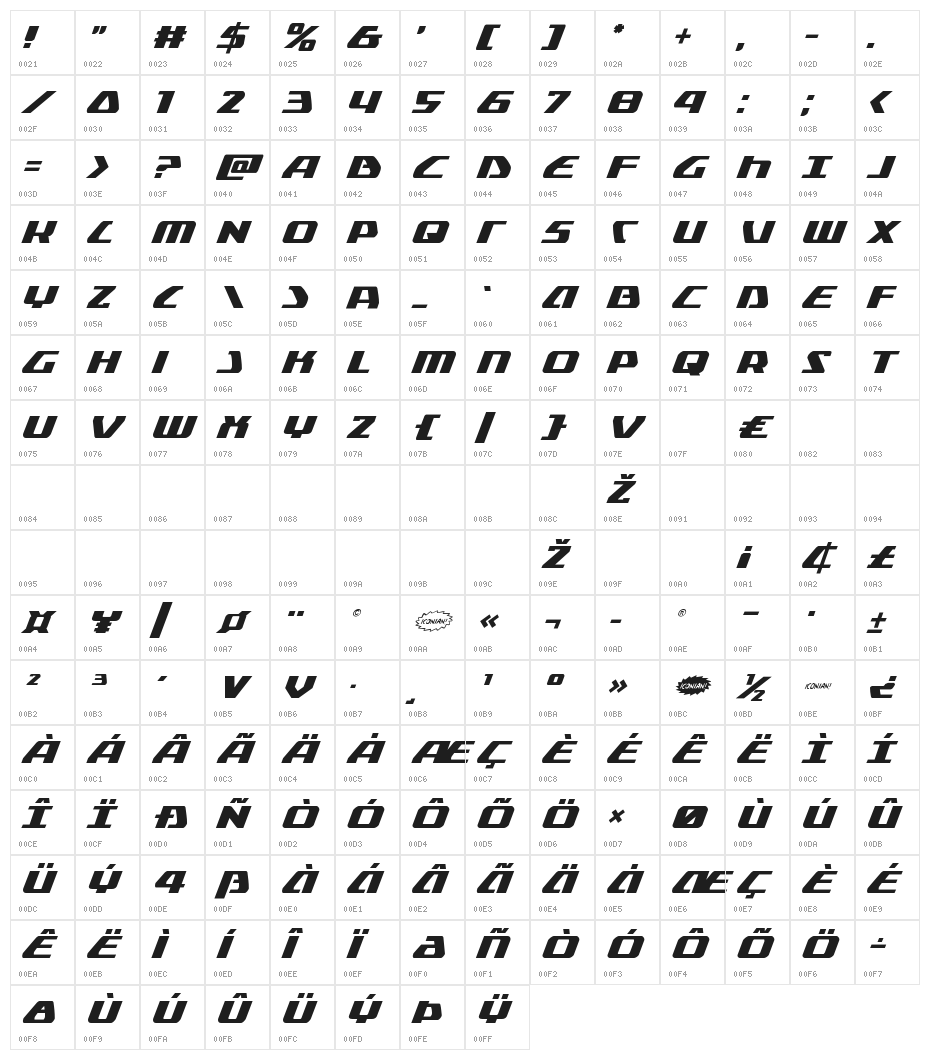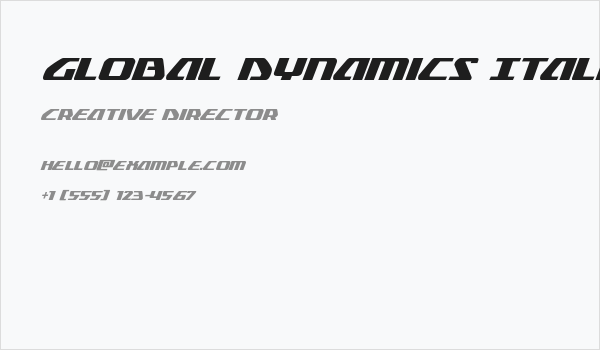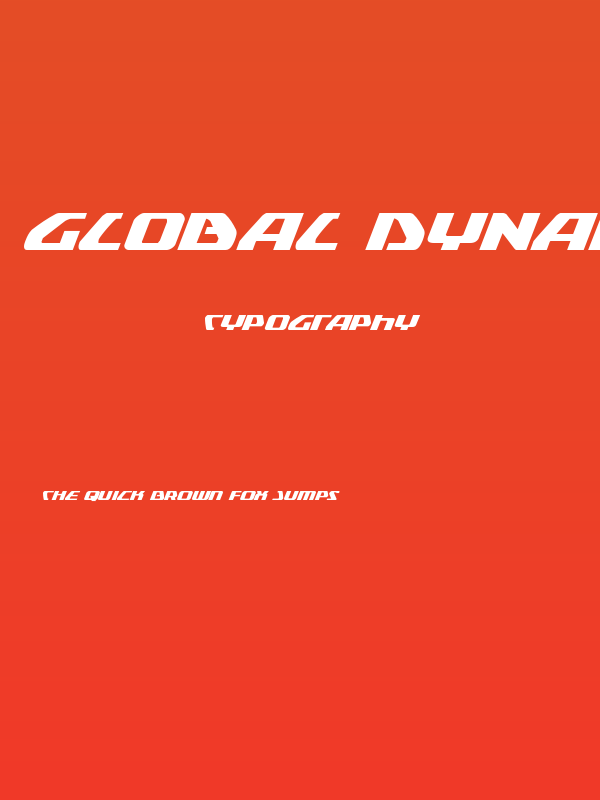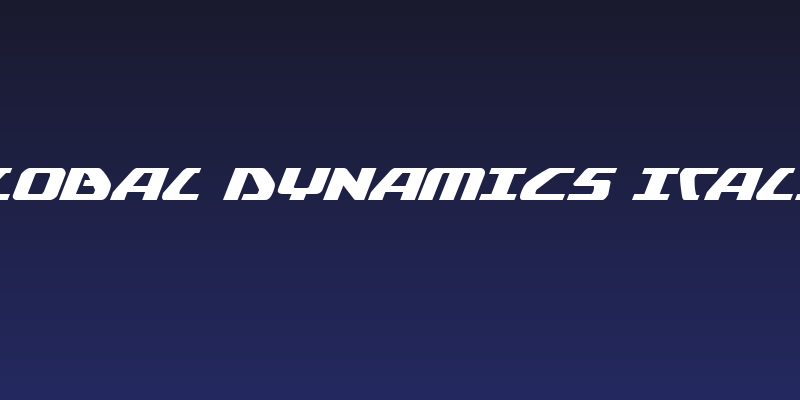
Global Dynamics Italic Font
Global Dynamics Italic Description
This font features a bold, italicized style with a futuristic and dynamic appearance. The characters are sharply angled, giving a sense of motion and speed. The uppercase and lowercase letters maintain a consistent slant, enhancing the italic effect. The numbers and special characters follow the same design principles, ensuring uniformity across the font. The strokes are thick and consistent, providing a strong visual impact. This font is ideal for projects that require a modern and energetic look.
| Proposed Projects | Ideal for technology branding, sports team logos, video game titles, and sci-fi themed designs. |